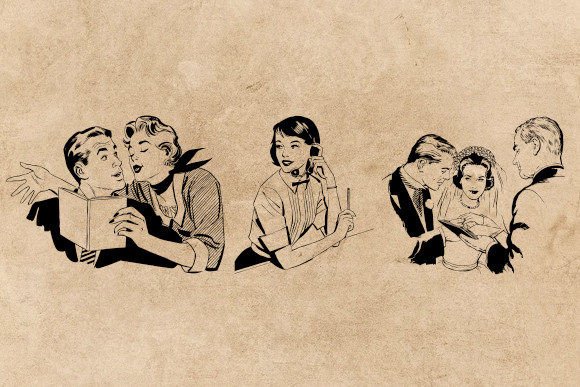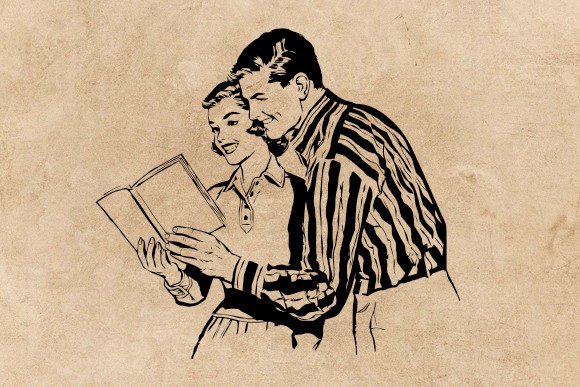
About Retro People Font
Introducing Retro People, an awesome dingbats font that brings a touch of retro charm to your designs. With its collection of unique and quirky characters, Retro People is perfect for adding a nostalgic and playful element to your creative projects.
Whether you’re designing posters, social media posts, promotional materials, or any other visual content, Retro People offers a variety of fun and expressive icons that will make your designs stand out. From retro-inspired characters and fashion accessories to vintage objects and symbols, this font provides a wide range of options to enhance your artwork.
The versatility of Retro People allows you to incorporate these charming dingbats into various design styles and themes. Whether you’re going for a retro aesthetic, a whimsical look, or simply want to add a touch of personality, Retro People has the characters to suit your needs.
The retro charm of Retro People adds a unique flair to your visuals, capturing the essence of a bygone era. It’s a font that sparks nostalgia and creates a connection with your audience. Whether you’re designing for a vintage-themed event, a retro-inspired brand, or simply want to infuse your designs with a playful touch, Retro People is the perfect choice.
So, unleash your creativity and embrace the retro vibes with Retro People. Explore the wide range of characters and let them add a touch of whimsy and nostalgia to your posters, social media posts, promo materials, and more. With Retro People, your designs will captivate and delight, leaving a lasting impression on your audience.